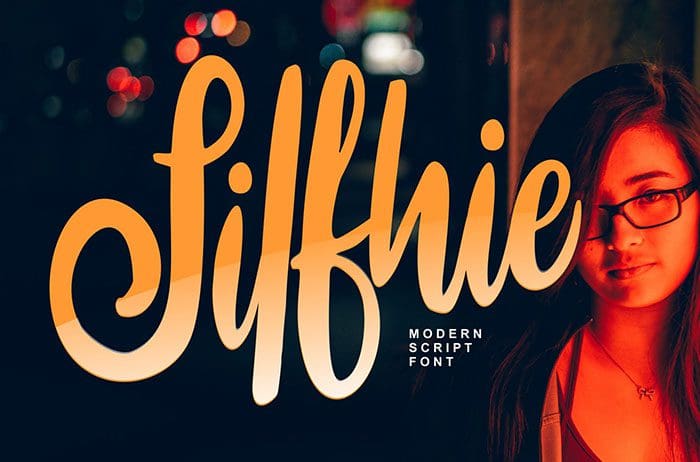
Silfhie Script Font
Silfhie Script Font feels equally charming and elegant. Perfect for branding, headings, wedding designs, invitations, signatures, logos, and more. Thanks to Vunira Studio for sharing this font! Take a look at this portfolio for more of his stunning fonts.